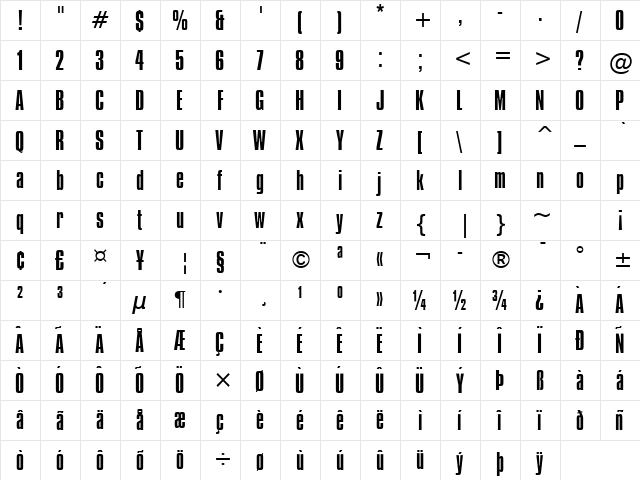
Commador Normal
Design Context for Commador Typeface
Commador is a composed and adaptable typeface that performs quietly and consistently across a wide range of design contexts.